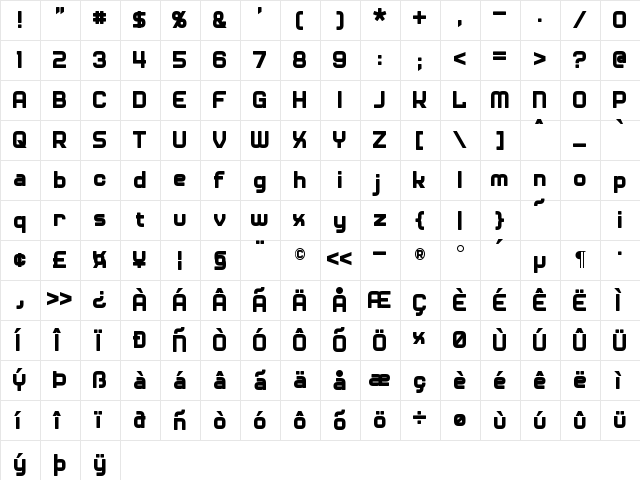
Diner Regular
Design Context for Diner Typeface
Diner is a composed and adaptable typeface that performs quietly and consistently across a wide range of design contexts.